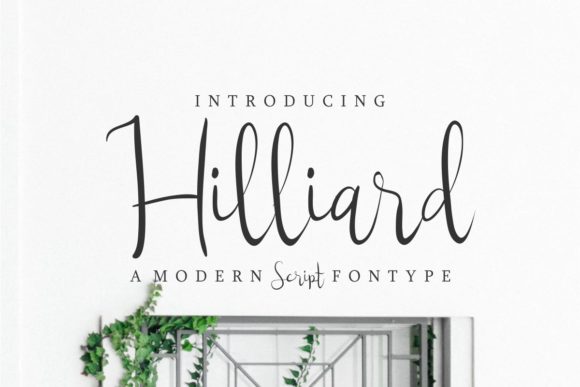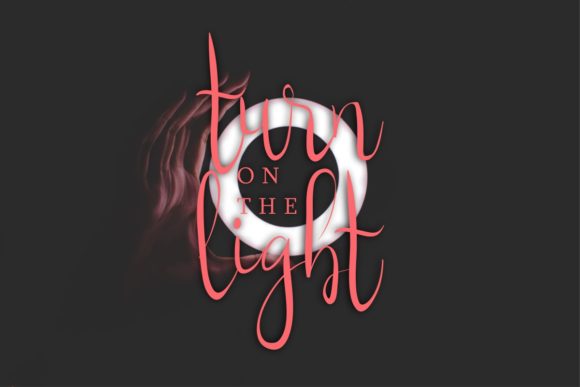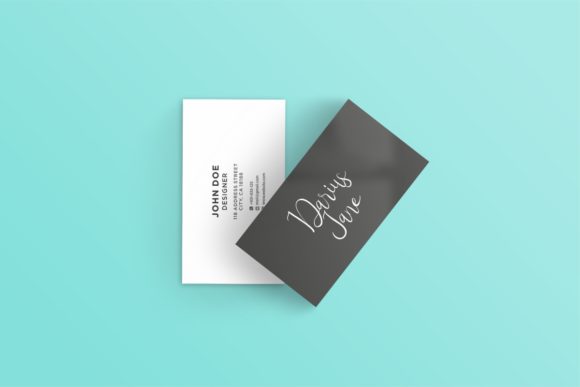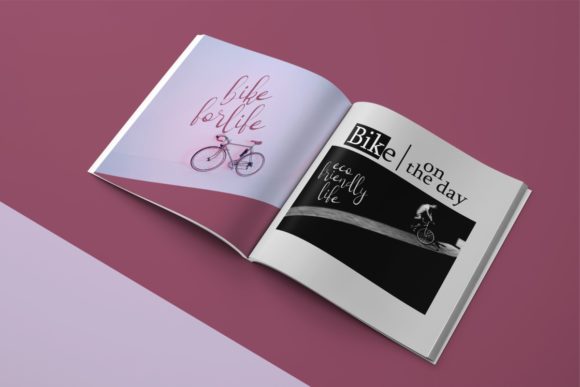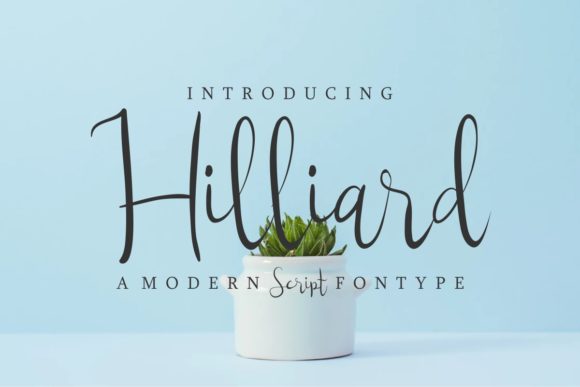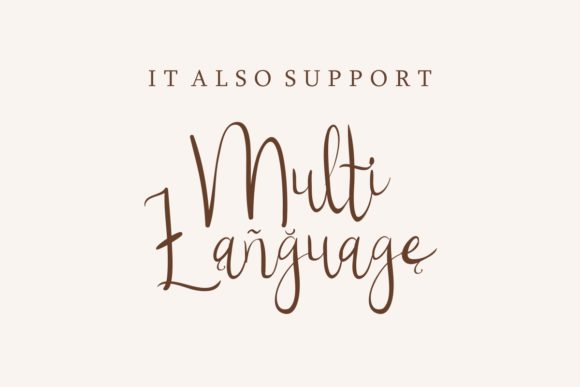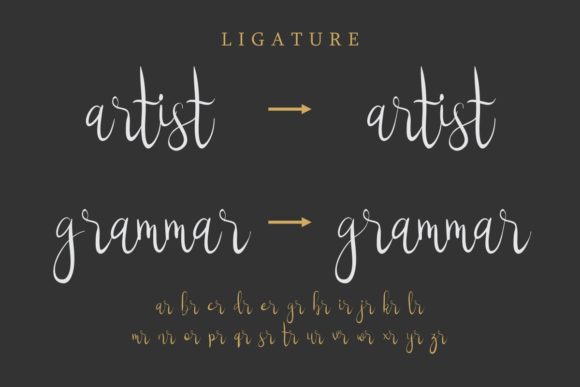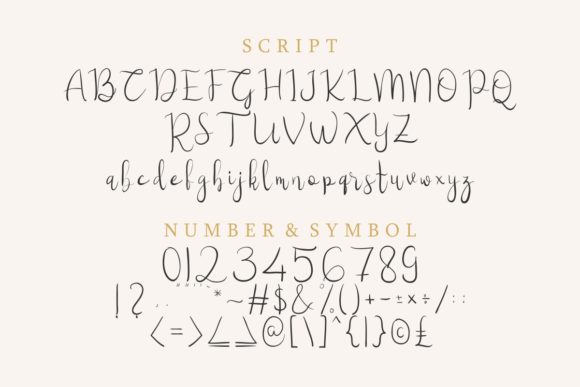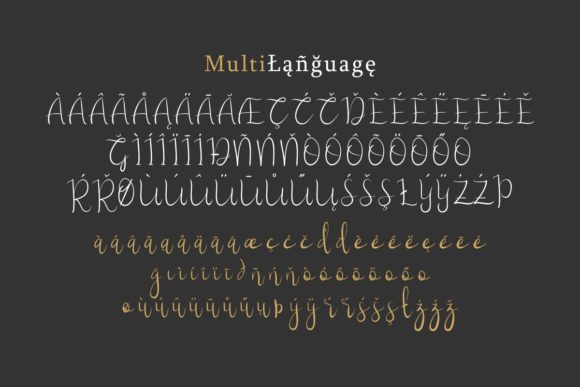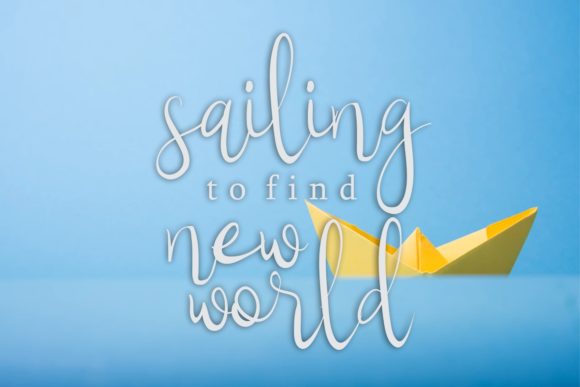
HomeScript FontsHilliard Font Script Fonts Hilliard Font FacebookXPinterestWhatsApp Hilliard Font Poster 2 Hilliard Font Poster 3 Hilliard Font Poster 4 Hilliard Font Poster 5 Hilliard Font Poster 6 Hilliard Font Poster 7 Hilliard Font Poster 8 Hilliard Font Poster 9 Hilliard Font Poster 10 Hilliard Font Poster 11 Hilliard Font Poster 12 About Hilliard Font Hilliard is a sweet and simple handwritten font with an authentic vibe. Fall in love with its modern look. DOWNLOAD ON CREATIVE FABRICAThis font is sold and delivered by Creative Fabrica. Font Canyon may earn a commission if you buy through this link. People also explored Agitha Font Boho Signature Trio Font Kanittia Font Tattoo Master Font Victoria Font Ginloops Font Swirl Monogram Font Realistic Mock-ups on Vintage Background Sweety Diary Font 358 0 TagsHilliard Font Previous articleRoasttery FontNext articleAmerta Misty Script Font LEAVE A REPLY Cancel reply Comment: Please enter your comment! Name:* Please enter your name here Email:* You have entered an incorrect email address! Please enter your email address here Website: Save my name, email, and website in this browser for the next time I comment. Personal Use Free Blue Highway Personal Use Free Read more about this font Soria Personal Use Free Read more about this font Cottage Personal Use Free Read more about this font Daisy Script Personal Use Free Read more about this font BLOG Free vs Paid Fonts: Why Investing in Premium Fonts Is Worth It Free vs Paid Fonts: Why Premium Fonts Are Worth It in 2025 The debate of free vs paid fonts continues in the design world. While... The 10 Best Handwriting Fonts to Add Personality to Your Designs Top 10 Handwritten Fonts That Elevate Your Designs Modern Sans-Serif Fonts That Brands Love in 2025